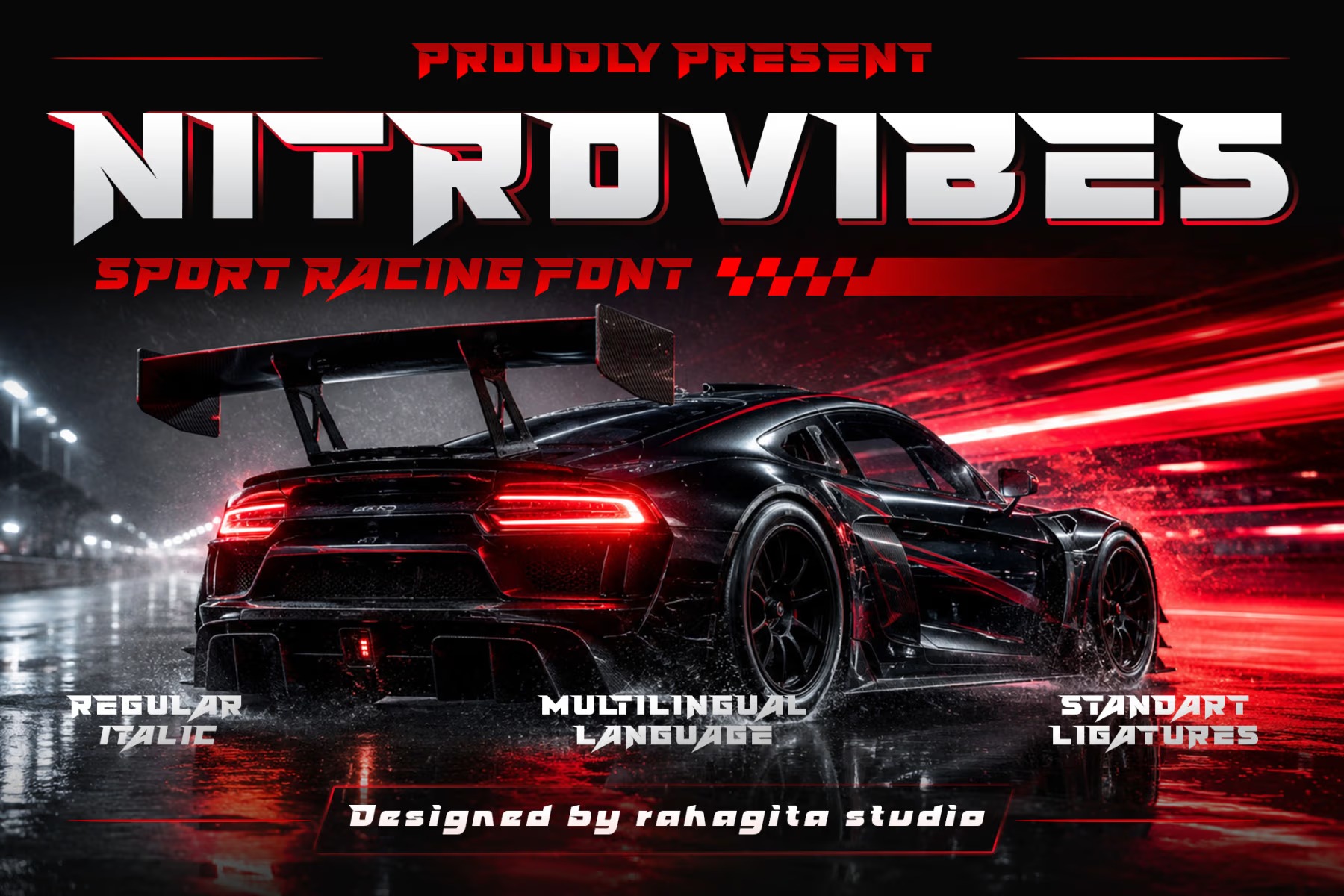
Nitrovibes – Techno Sport Font
NITROVIBES – Techno Sport Font is a professionally designed typeface that delivers clarity, structure, and consistent performance across various design applications. NITROVIBES is a bold, high-energy display typeface designed to capture the spirit of speed, power, and modern motorsport culture. Featuring sharp angles, dynamic letterforms, and an aggressive racing-inspired aesthetic, this font delivers a strong visual impact that instantly grabs attention. Its futuristic styling makes it an excellent choice for automotive branding, esports graphics, gaming titles, sports jerseys, racing events, action-themed posters, and performance-focused marketing materials.
With both Regular and Italic styles available, NITROVIBES offers versatility while maintaining its distinctive fast-paced character. Whether you’re creating a logo for a racing team, designing promotional content for a motorsport event, or developing eye-catching digital graphics, NITROVIBES brings energy, movement, and professional-grade visual appeal to every project.